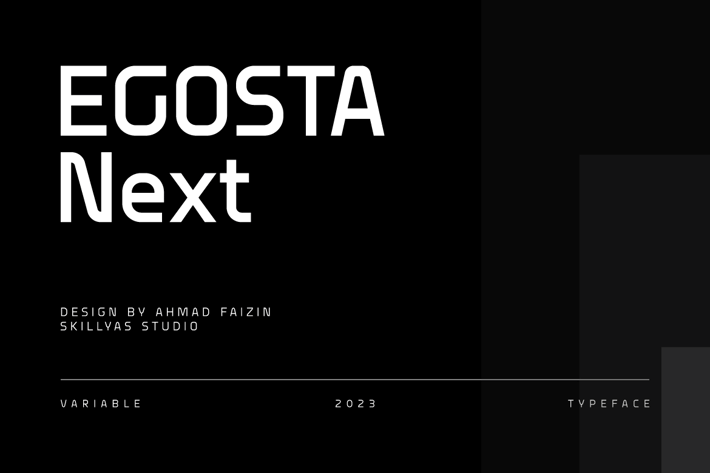
Egosta Sans Serif Family Font
EGOSTA is a complete sans serif family. The letterform and sharp variations characterize a bold and playful typeface in a graphic layout, making it perfect for modern and futuristic visual needs, EGOSTA complete family contains 10 styles with two axes; Weight and Width, from Thin to Bold.